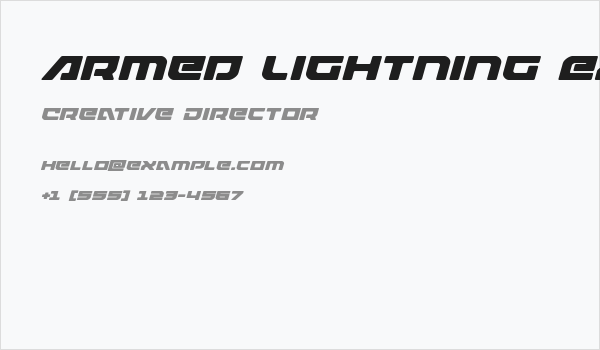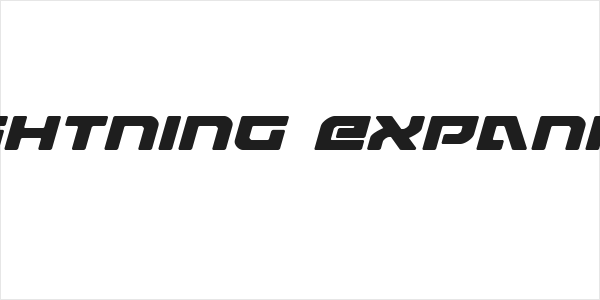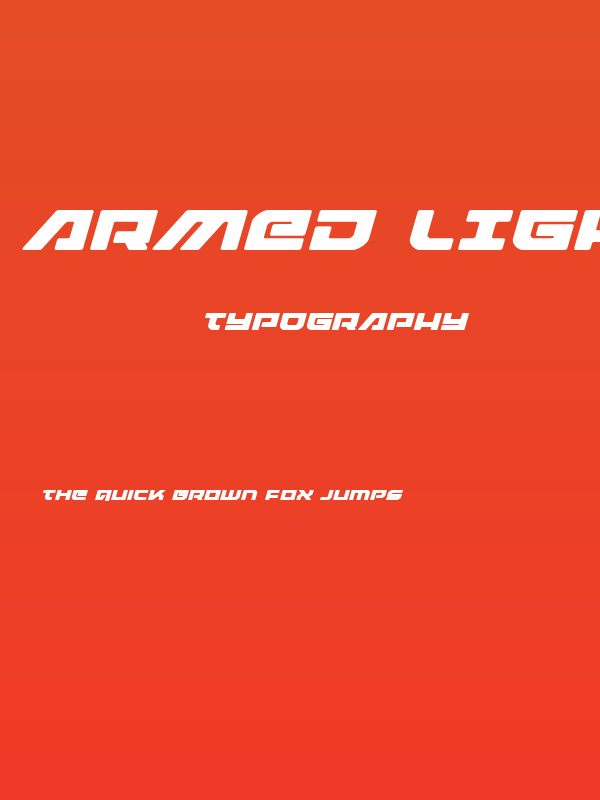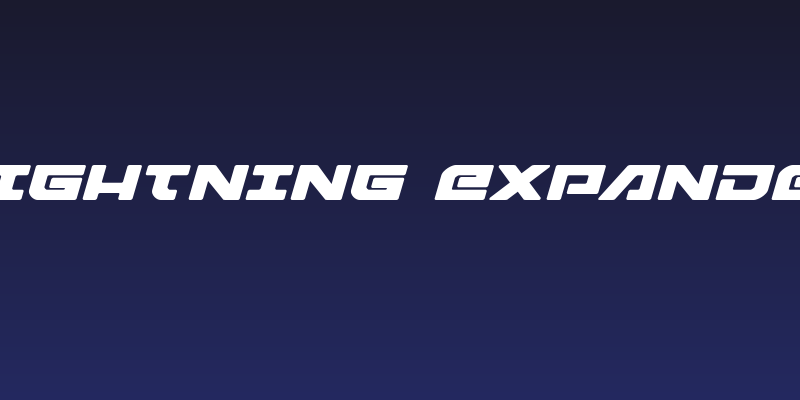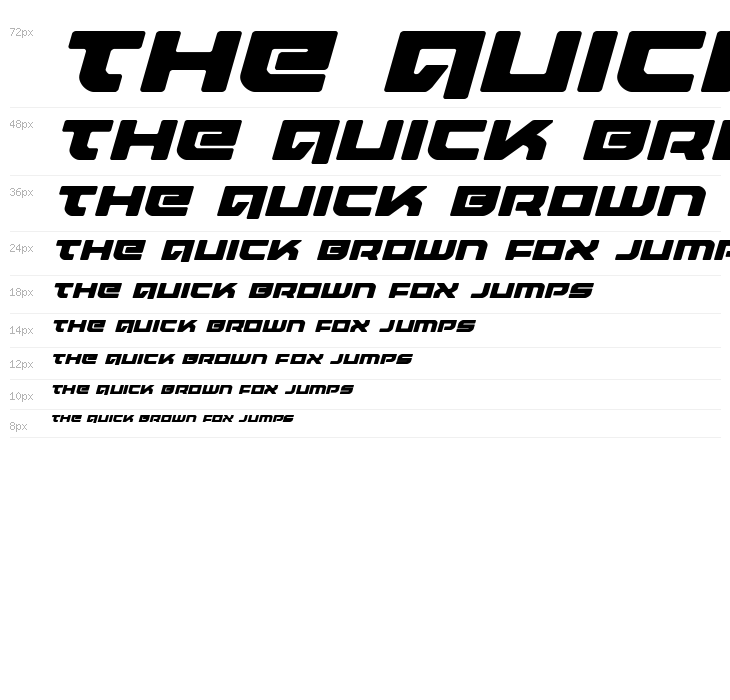
Armed Lightning Expanded Italic Font
Armed Lightning Expanded Italic Description
This font features a bold, futuristic design with a strong emphasis on angular lines and geometric shapes. The characters are expanded and italicized, giving them a dynamic and forward-leaning appearance. The uppercase letters are particularly striking, with sharp edges and a sense of movement. The lowercase letters maintain the same stylistic elements, ensuring consistency across the font. Numbers and special characters are designed to match the bold and angular style, making them suitable for attention-grabbing displays. The overall aesthetic is modern and aggressive, ideal for projects that require a strong visual impact.
Proposed ProjectsIdeal for sports branding, video game titles, sci-fi movie posters, and dynamic logo designs.